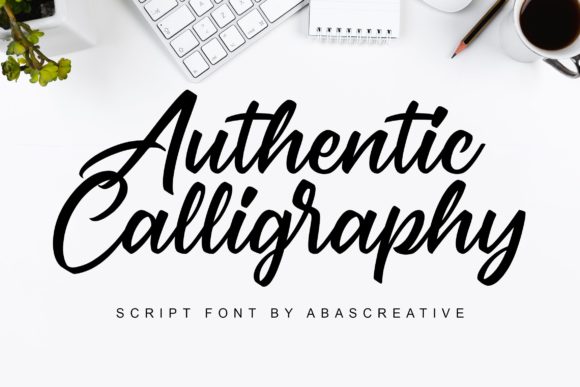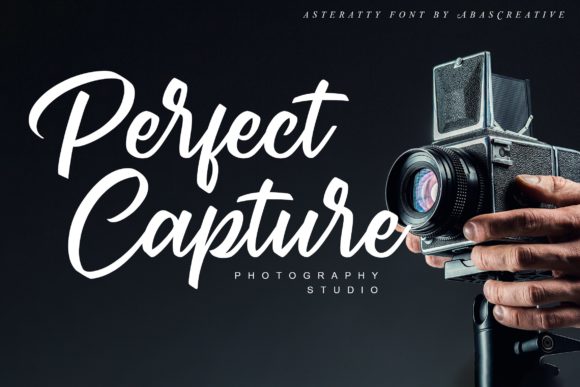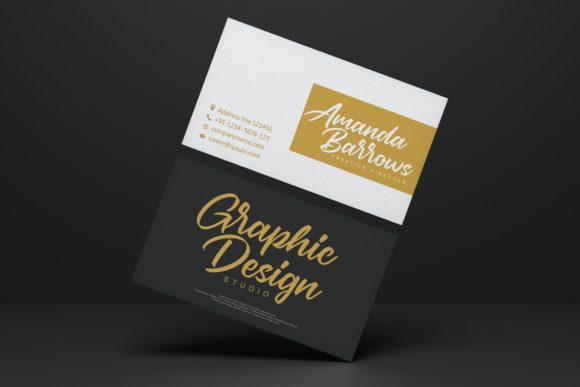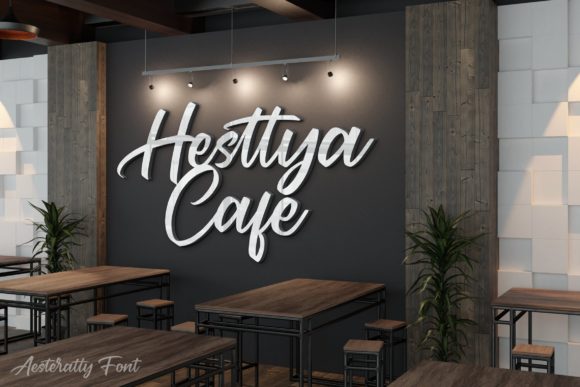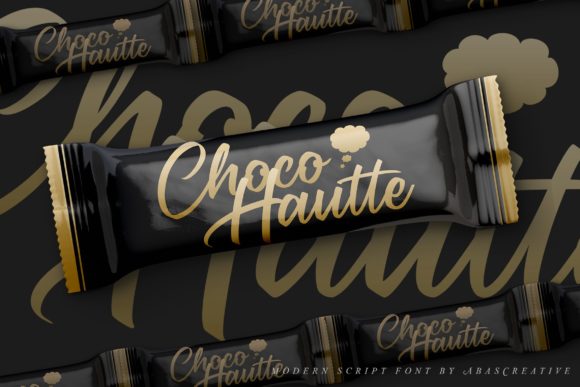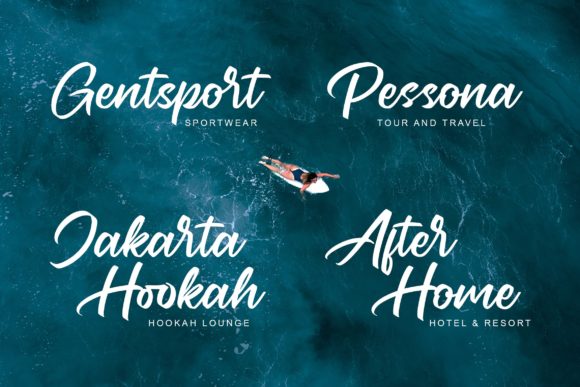
Asteratty Font: Elevate Your Designs with Elegance and Sophistication
In the world of typography, fonts play a crucial role in conveying the tone and personality of a design. For designers and crafters seeking to add a touch of elegance and sophistication to their projects, the Asteratty Font is an exceptional choice. This stunning script font is designed to bring a personalized vibe to various designs, making it perfect for wedding invitations, thank you cards, quotes, greeting cards, logos, business cards, and more.
What Makes Asteratty Font Stand Out?
Asteratty Font is a stylish and incredibly elegant script font that boasts a unique charm. Its flowing lines, intricate details, and beautiful swashes make it an ideal choice for designs that require a high level of sophistication. The font’s classic and timeless look ensures that it will never go out of style, making it a valuable addition to any designer’s font collection.
Wedding invitations, save-the-date cards, and event announcements require a font that exudes elegance and sophistication. Asteratty Font fits the bill perfectly, adding a touch of luxury and refinement to any wedding or event design. Its beautiful script and swashes create a romantic and whimsical feel, making it perfect for couples looking to make their special day even more memorable.
Ideal for Crafters and Small Business Owners
For crafters and small business owners, Asteratty Font offers a wide range of creative possibilities. Use it to create stunning branding materials, such as logos, business cards, and brochures, that will help you stand out from the competition. The font’s elegant and sophisticated look makes it perfect for businesses that offer high-end products or services, such as wedding planning, photography, or luxury goods.
Key Features of Asteratty Font
- Elegant Script Font: Asteratty Font features a beautiful, flowing script that adds a touch of sophistication to any design.
- Intricate Details: The font boasts intricate details, including swashes and flourishes, that make it perfect for designs that require a high level of elegance.
- Classic and Timeless Look: Asteratty Font has a classic and timeless look that ensures it will never go out of style.
- Multilingual Support: The font supports multiple languages, making it perfect for designers and crafters who work with clients from diverse backgrounds.
Tips for Using Asteratty Font
To get the most out of Asteratty Font, here are a few tips to keep in mind:
- Use it sparingly: Asteratty Font is a statement font, so use it sparingly to avoid overwhelming your design.
- Pair it with a sans-serif font: Pairing Asteratty Font with a sans-serif font creates a beautiful contrast that adds visual interest to your design.
- Experiment with swashes: The font’s swashes and flourishes offer a wide range of creative possibilities, so don’t be afraid to experiment and find the perfect look for your design.
Asteratty Font is a stunning script font that offers a unique blend of elegance and sophistication. Its classic and timeless look makes it perfect for designers and crafters seeking to add a touch of luxury to their projects. Whether you’re working on a wedding invitation, a logo, or a business card, Asteratty Font is an exceptional choice that is sure to elevate your designs to the next level.